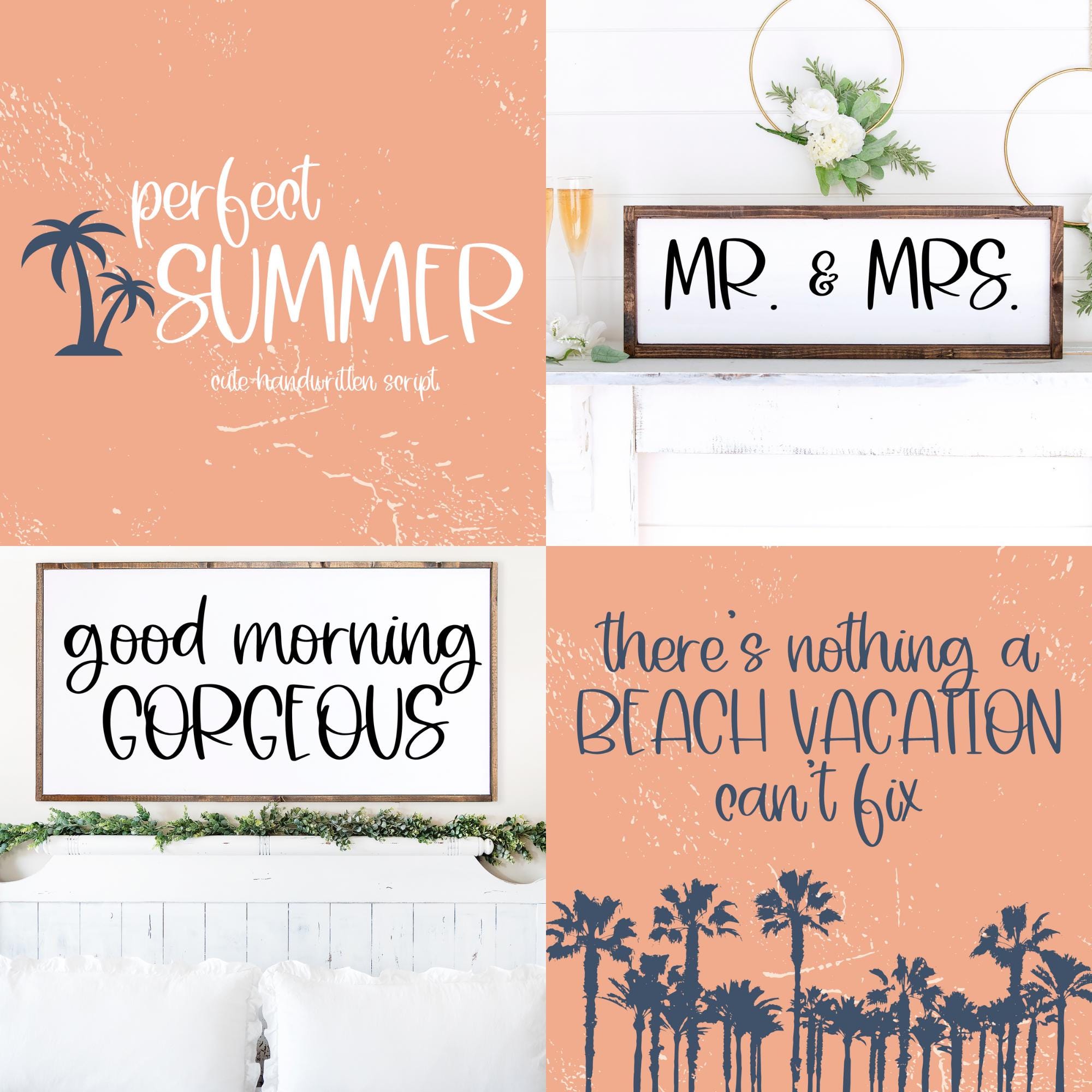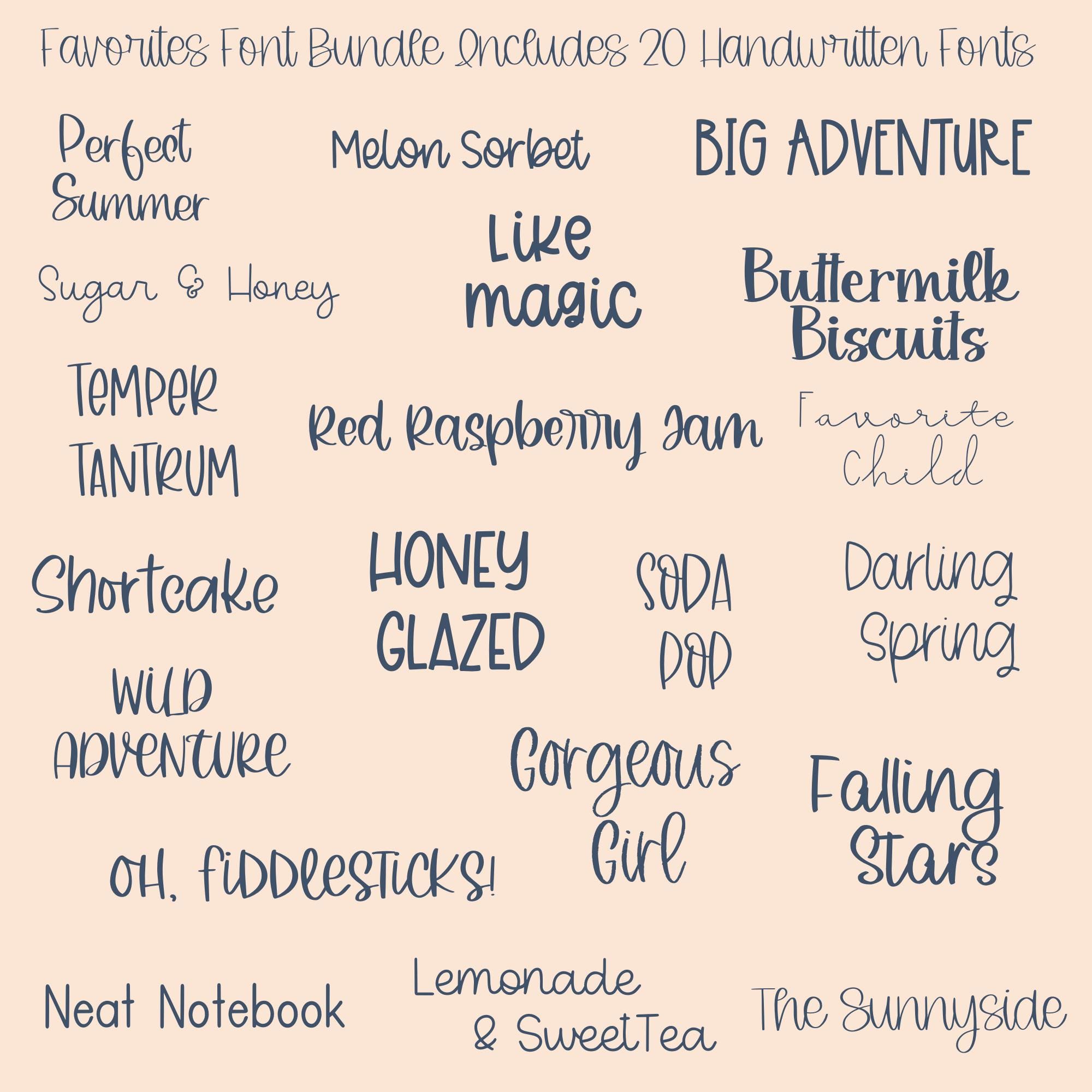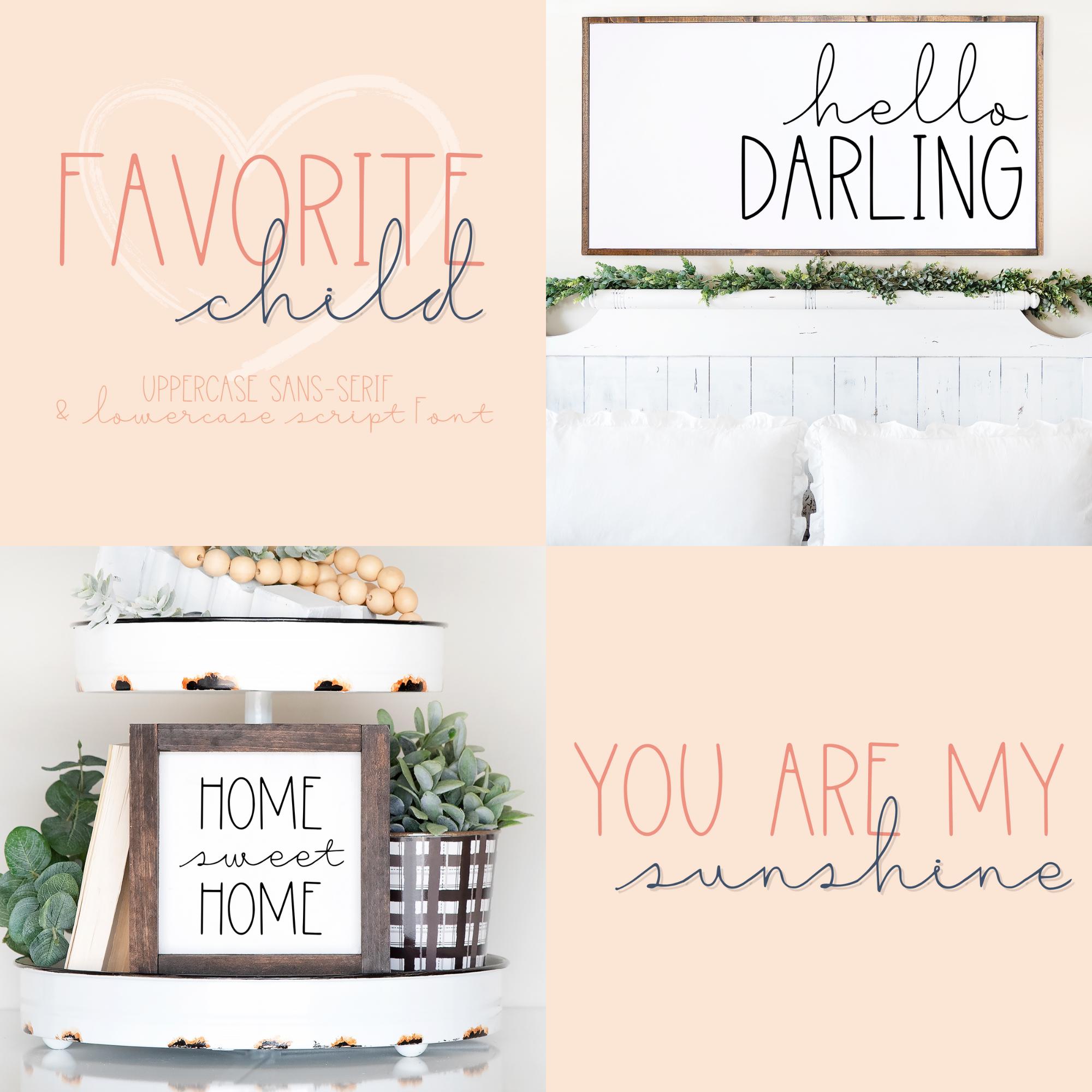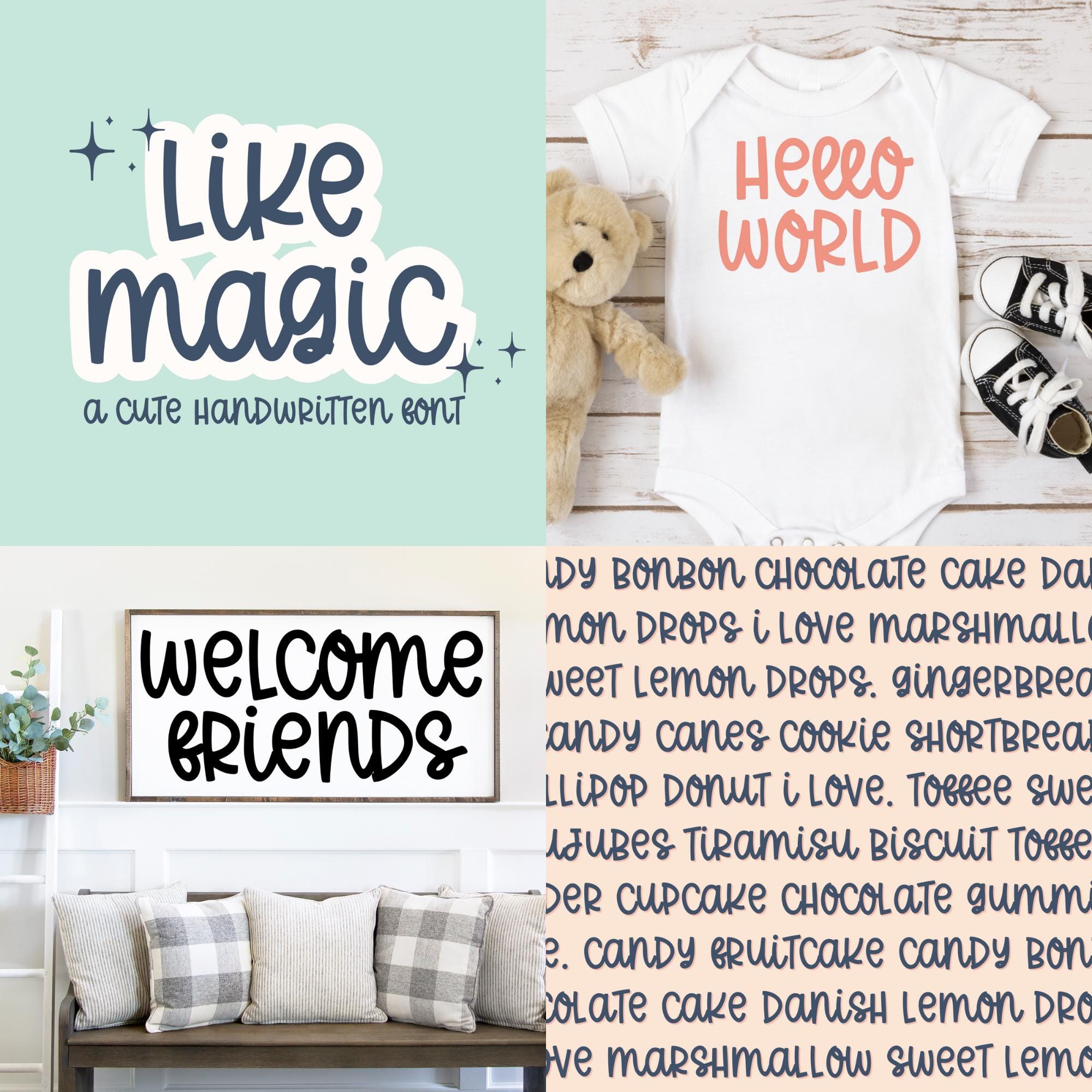
Meet your new go-to collection for charming projects: the Favorites Handwritten Font Bundle. This curated set brings you 20 adorable handwritten, cursive, and script fonts designed to add personality to everything you create—from Cricut crafts and SVG cut files to digital planners, logos, and social posts. If you love cute, casual handwriting with loads of character, this bundle is the perfect blend of style and versatility.
What makes this bundle special? Variety and cohesion. You’ll get playful scripts, neat notebook styles, and whimsical cursives that pair beautifully together for headings, subheads, and body text. Mix and match to create standout designs with consistent charm. The collection is equally suited for small businesses and hobby crafters—use it to design logos, branding elements, packaging, labels, invitations, classroom printables, and seasonal decor.
Included fonts:
- Big Adventure
- Buttermilk Biscuits
- Darling Spring
- Falling Stars
- Favorite Child
- Gorgeous Girl
- Honey Glazed
- Lemonade & Sweet Tea
- Like Magic
- Melon Sorbet
- Neat Notebook
- Oh, Fiddlesticks!
- Perfect Summer
- Red Raspberry Jam
- Shortcake
- Soda Pop
- Sugar & Honey
- Temper Tantrum
- The Sunnyside
- Wild Adventure